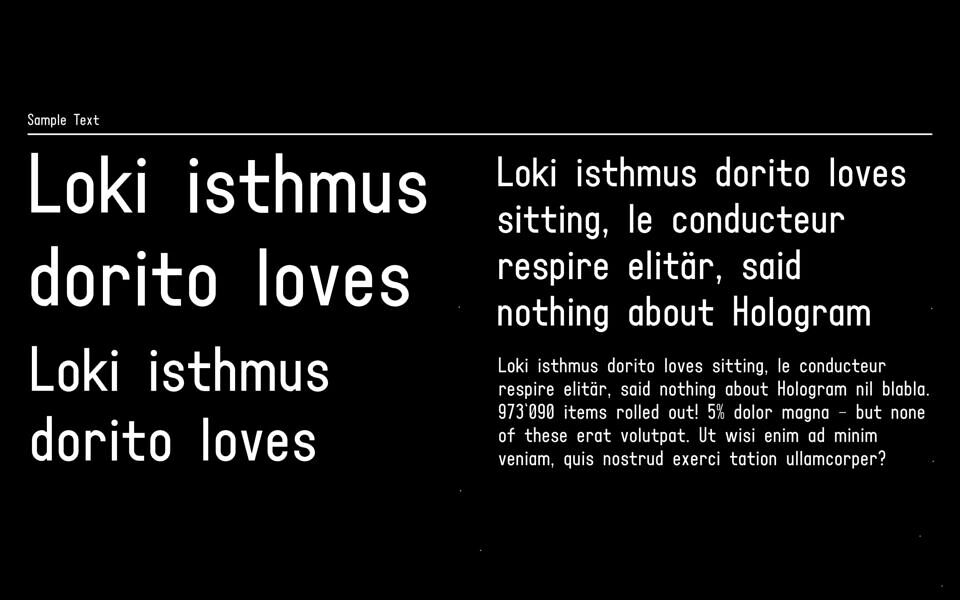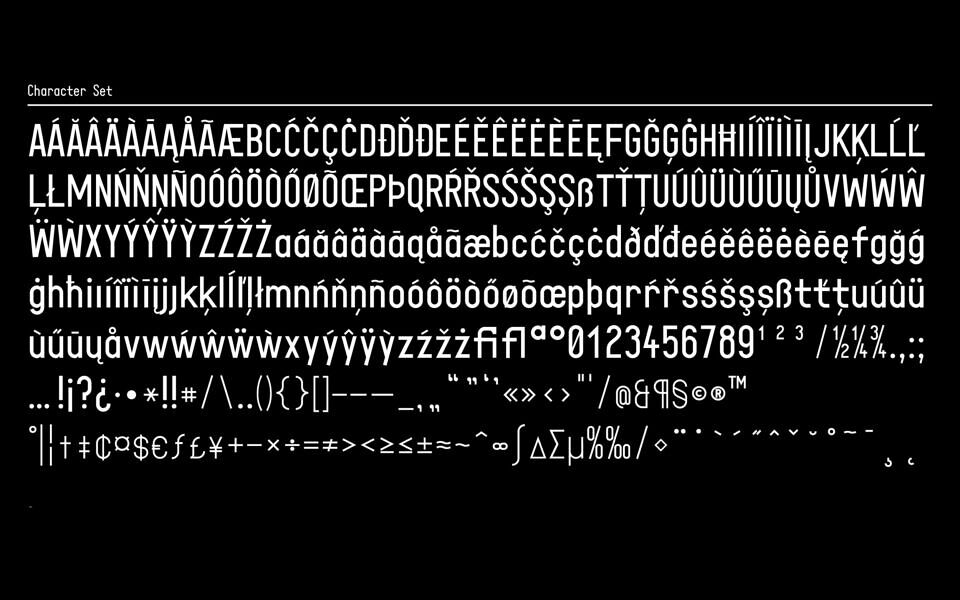
SimplexSans is a modular, grid-based display typeface inspired by the era of manual lettering — a time when type wasn’t designed on screens, but drawn by hand with ruler and compass. The typeface was originally created in the early 1990s, digitized in 1998, and redesigned and completed in 2025.
Simplex Sans was developed as a typographic experiment rooted in analog construction techniques. Every glyph is based on a strict modular system, allowing the shapes to be drawn manually on graph paper using only a ruler and a compass. The result is a display typeface that feels both mechanical and human, rational and playful.
Design Characteristics:
- Geometric, monolinear construction
- Based on a triospace grid system, no kerning!
- Normal characters (a, b, n, etc.) are 2 units wide, narrow characters (I, i, l, etc.) 1 are unit wide and wide characters (W, m, etc.) are 3 units wide
- Designed for display use: headlines, signage, editorial experiments
- Trispace font: to allow rhythmic typographic patterns without relying on variable widths or kerning
- No optical corrections — all shapes are purely constructed and follow the logic of the grid
- Special characters are typically drawn with half the stroke width